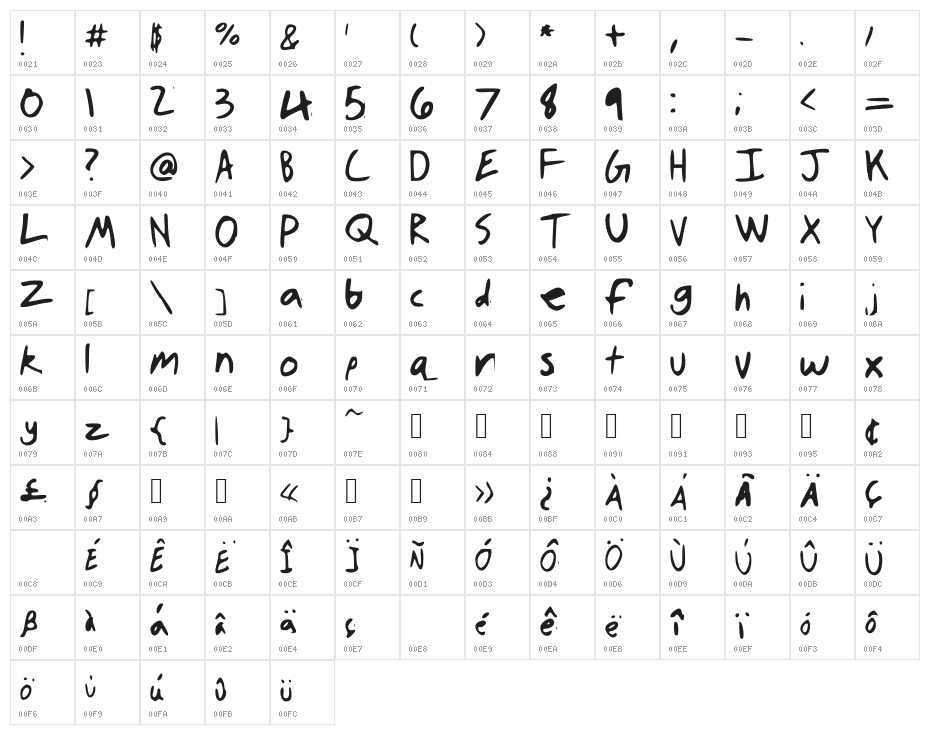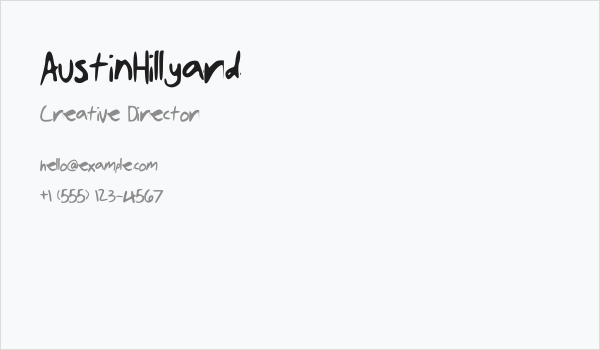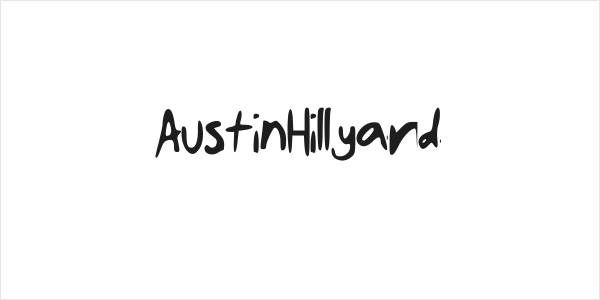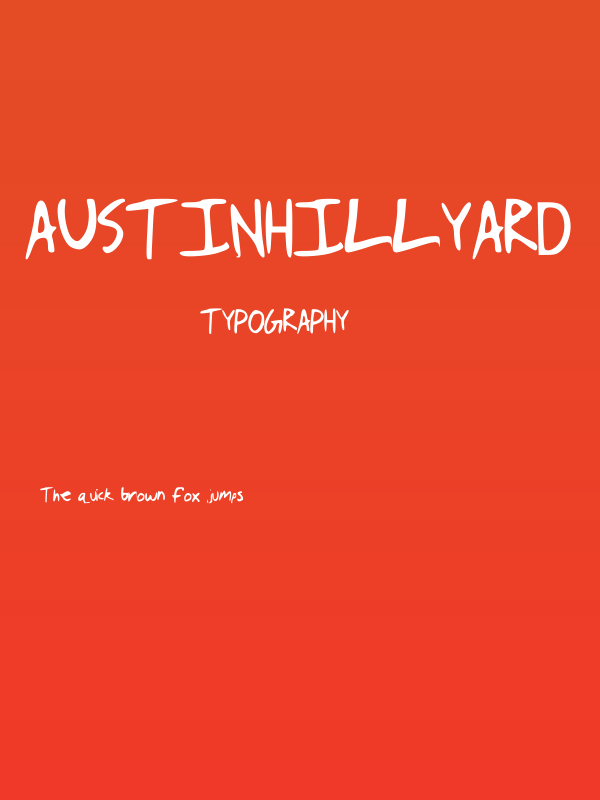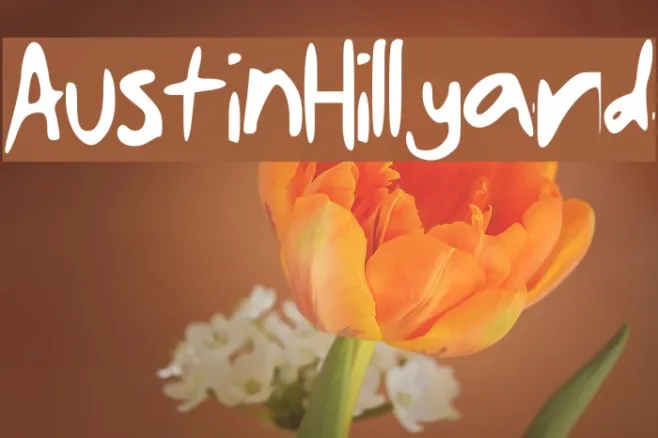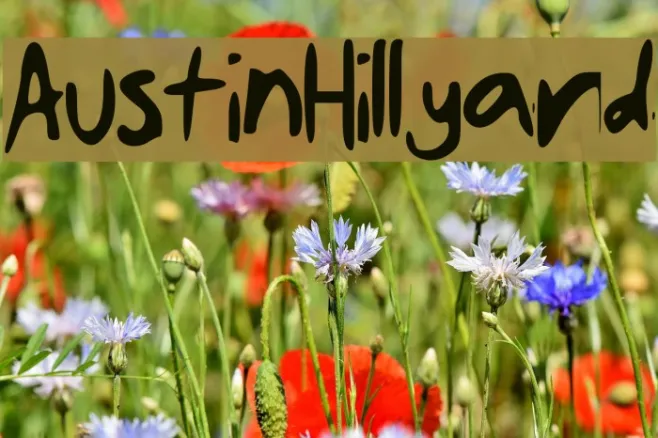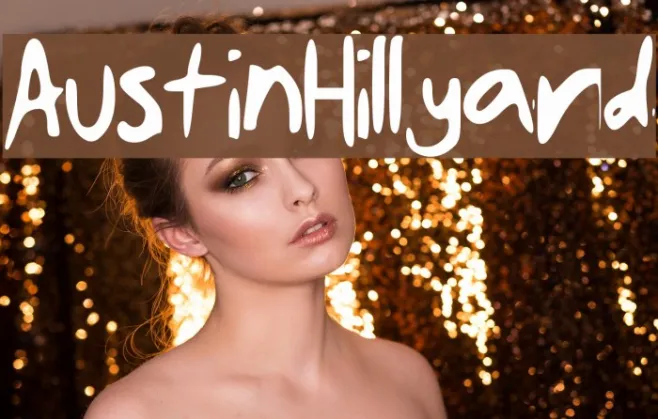
AustinHillyard Font
AustinHillyard Description
This font features a playful and energetic handwritten style, characterized by its bold and expressive strokes. The letters are slightly irregular, giving it a casual and informal appearance. The uppercase and lowercase letters maintain a consistent style, with rounded edges and a dynamic flow. Numbers and special characters are crafted with the same lively spirit, making them stand out with their unique shapes. This font exudes a sense of creativity and spontaneity, perfect for projects that require a personal touch.
| Proposed Projects | Ideal for greeting cards, children's books, playful branding, and creative posters. |